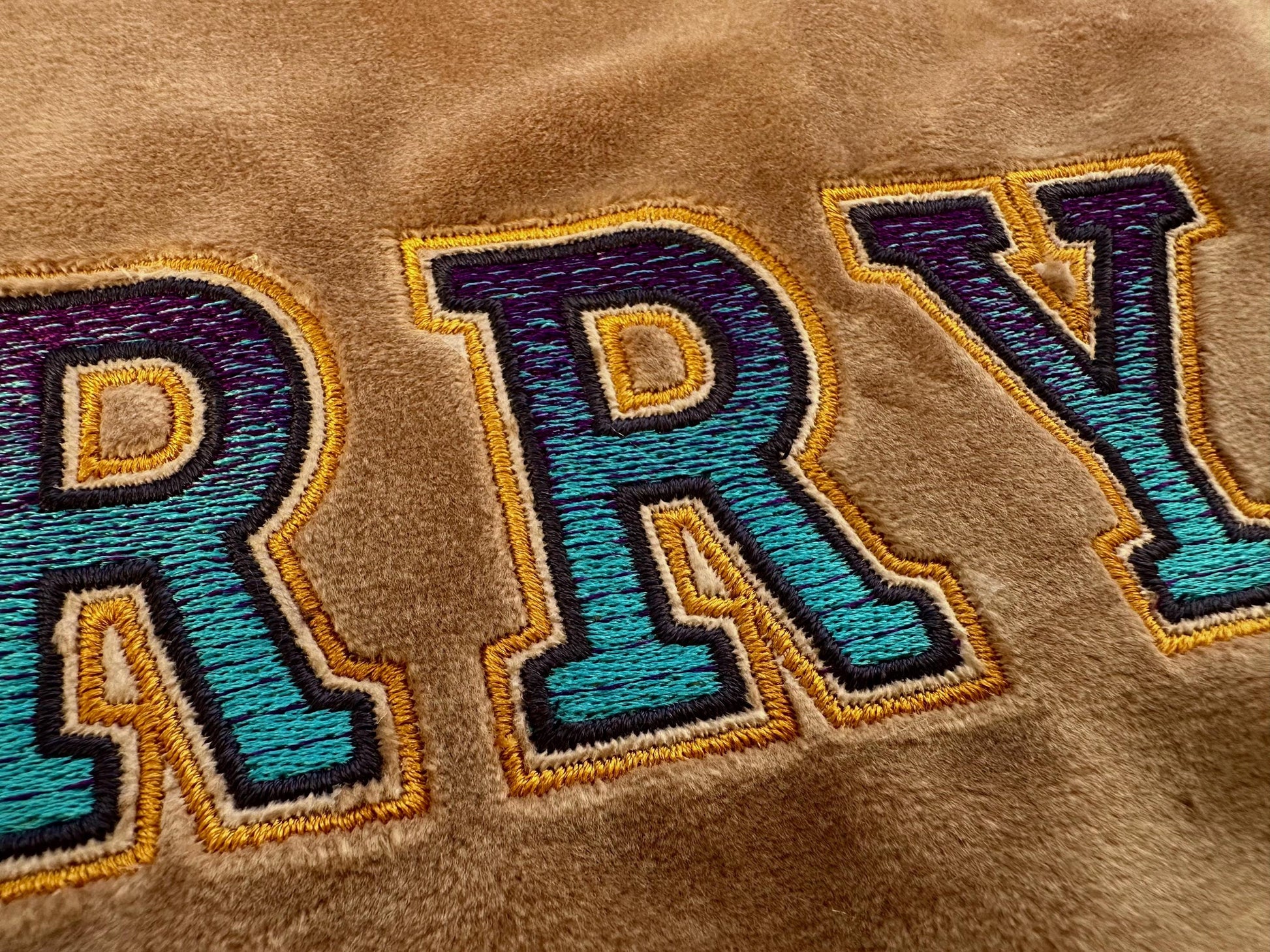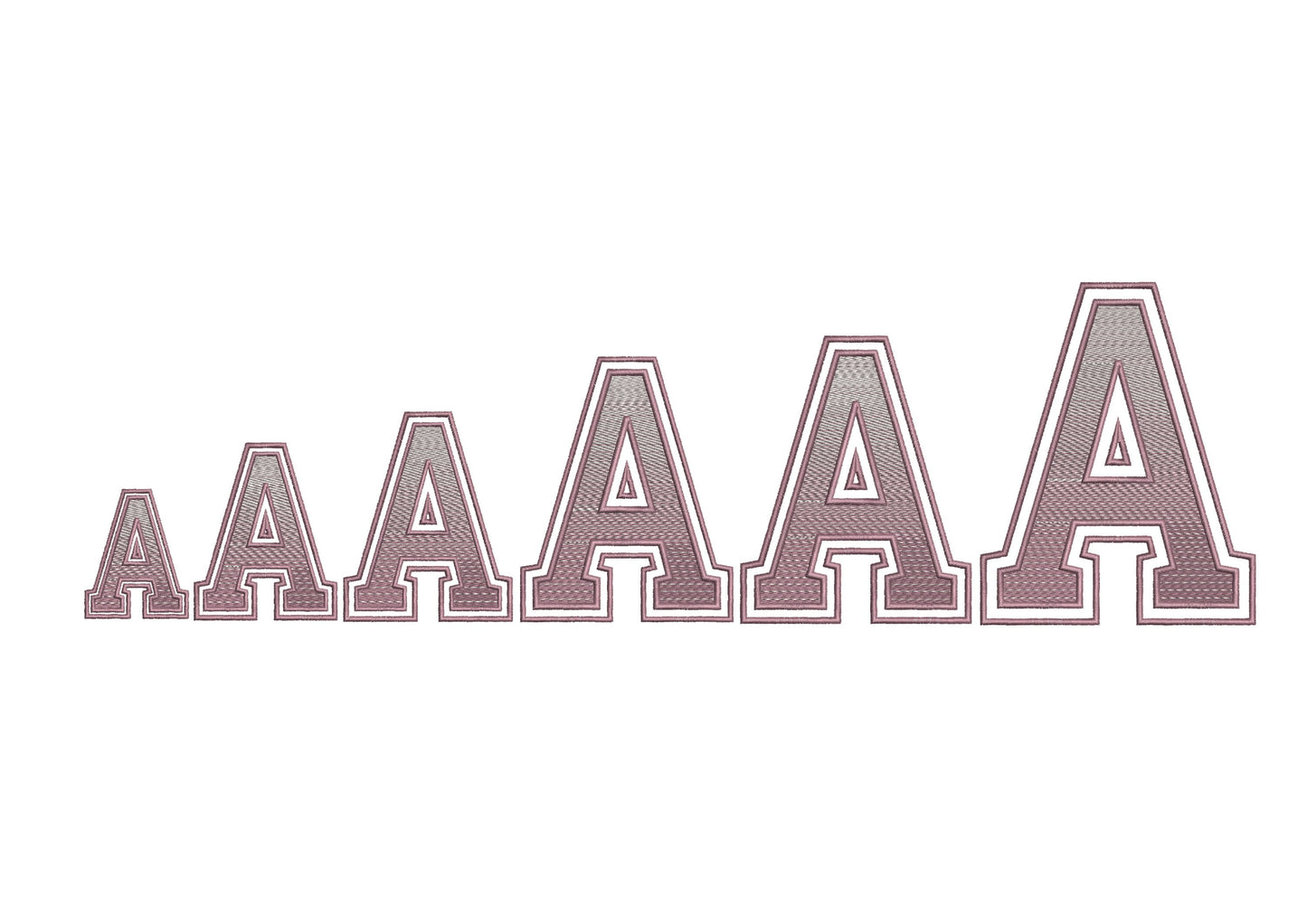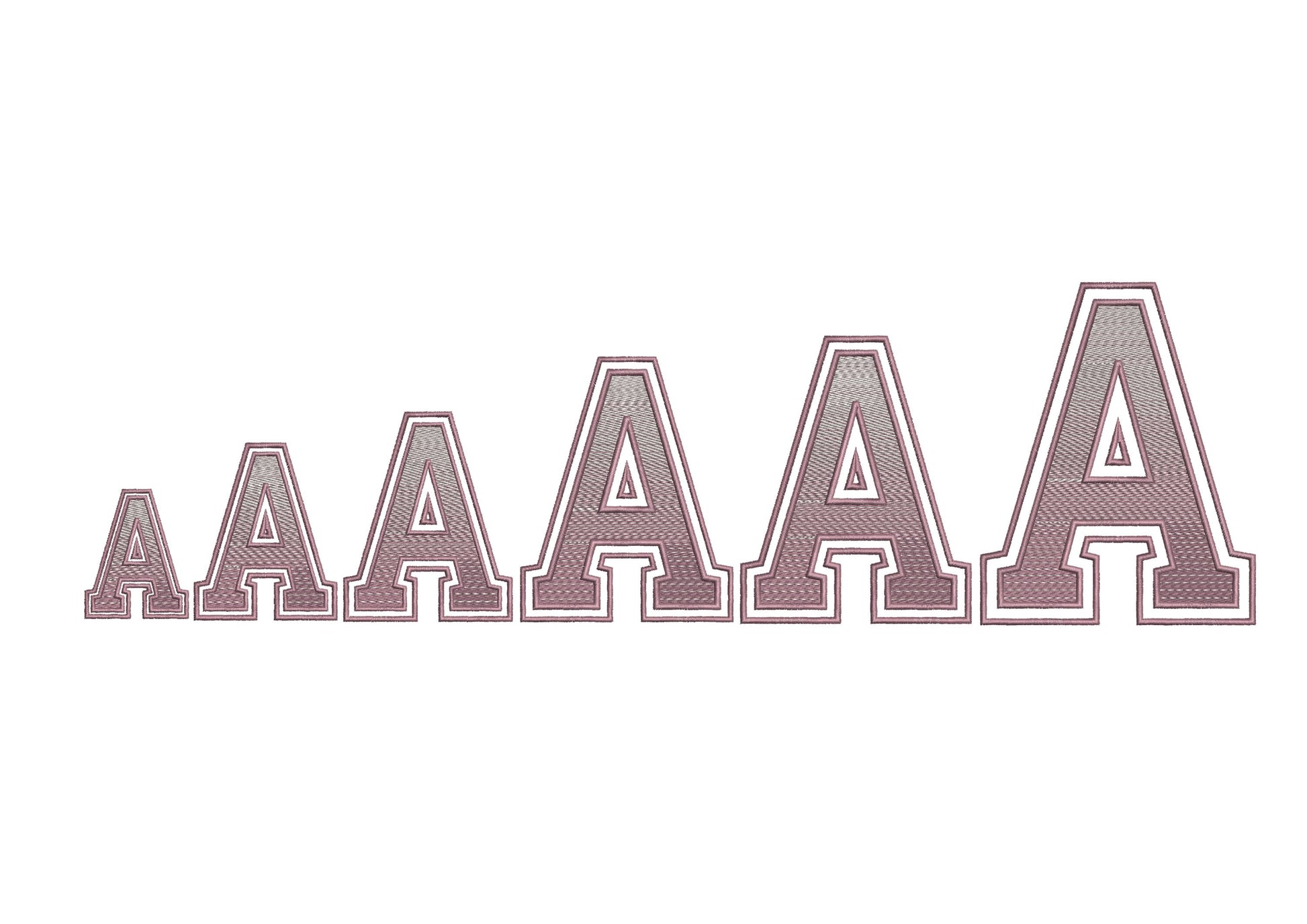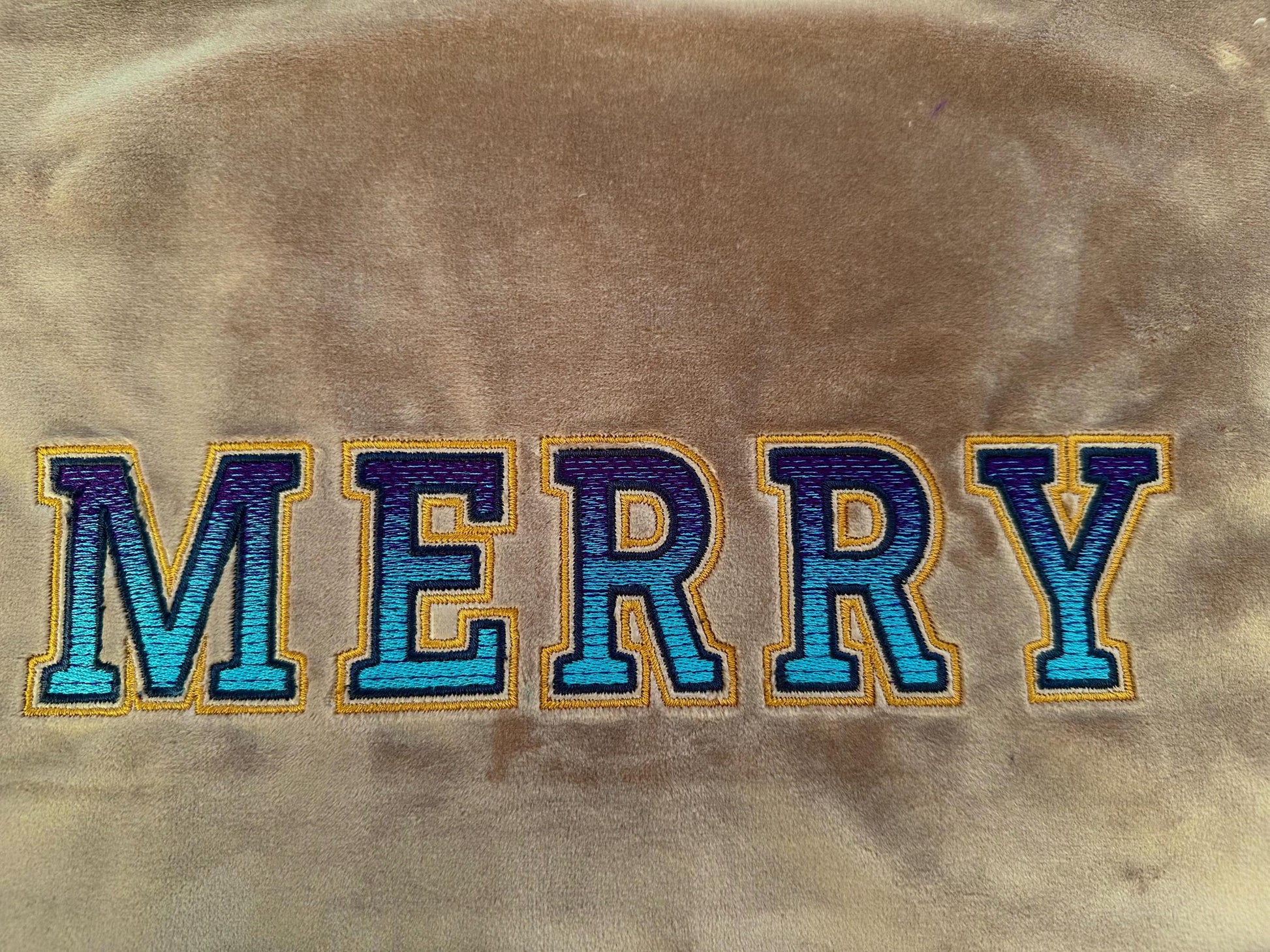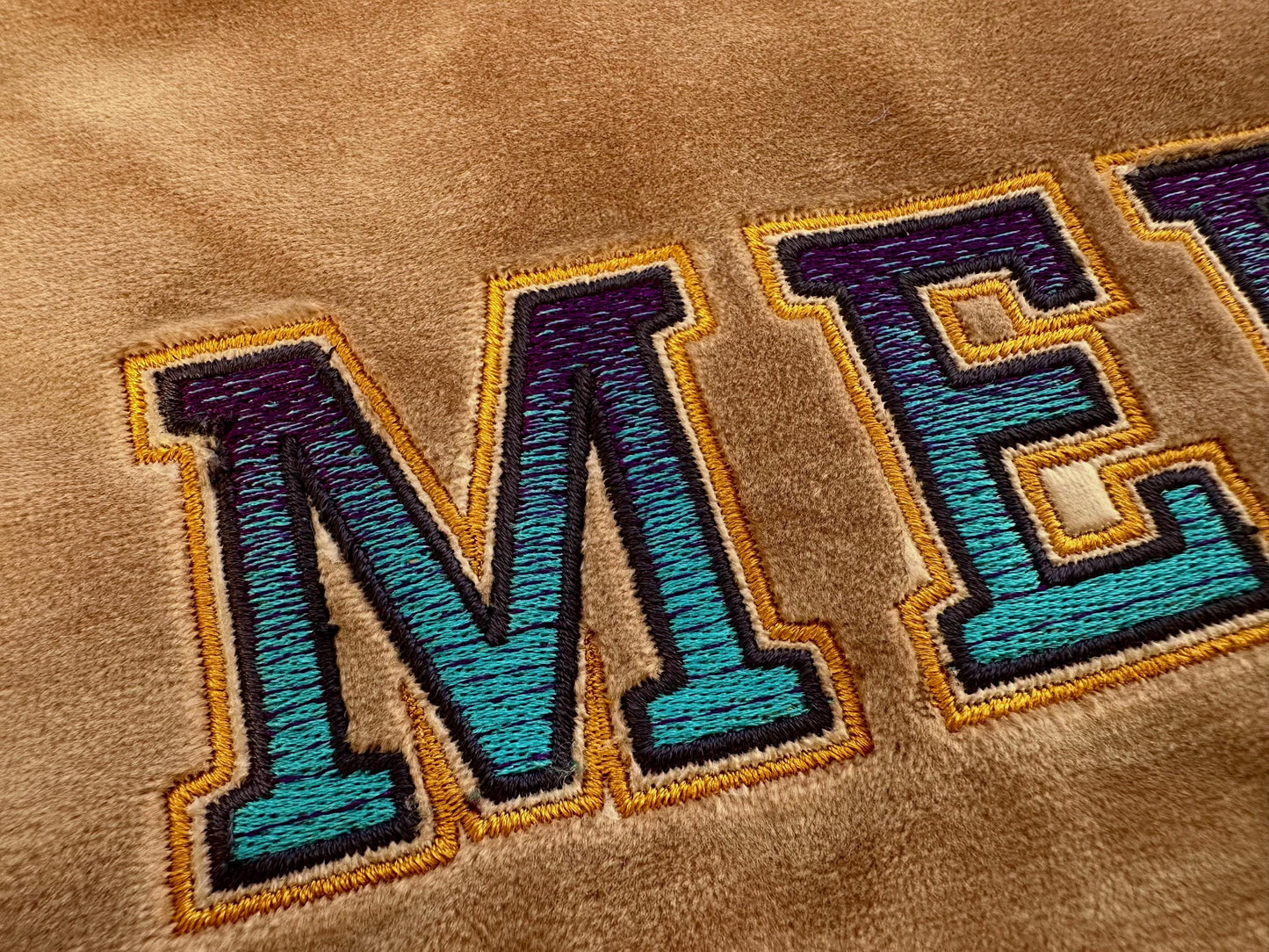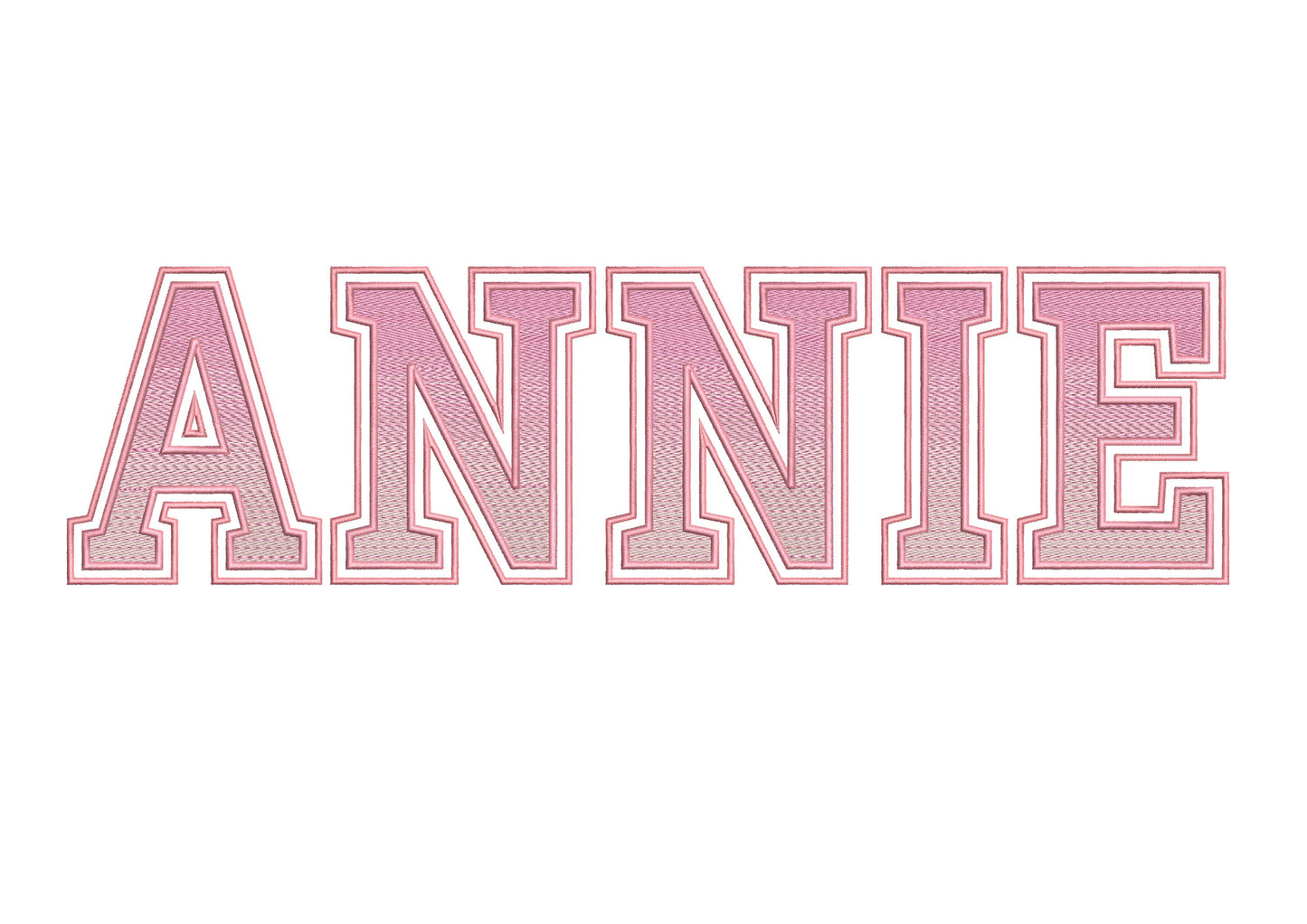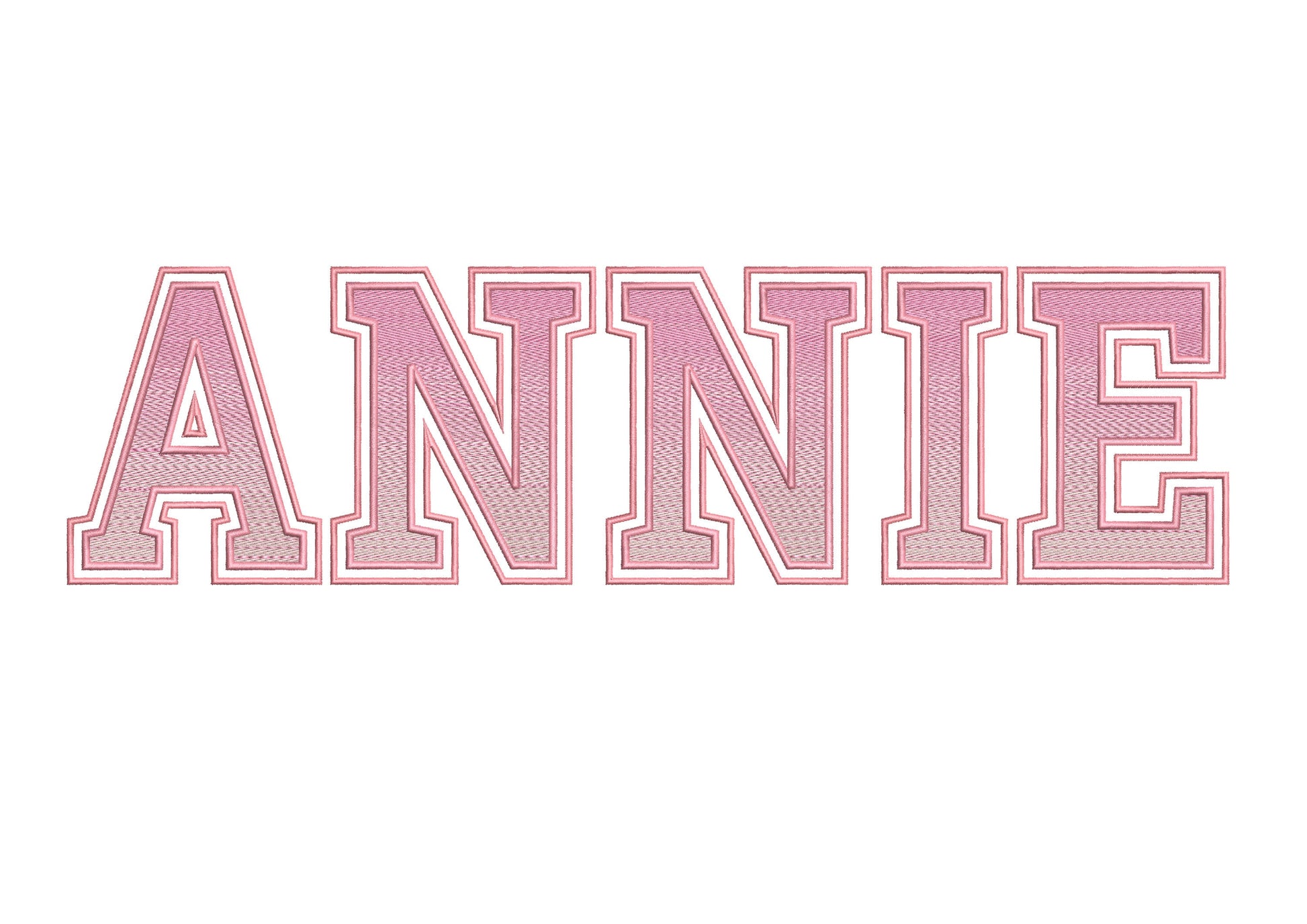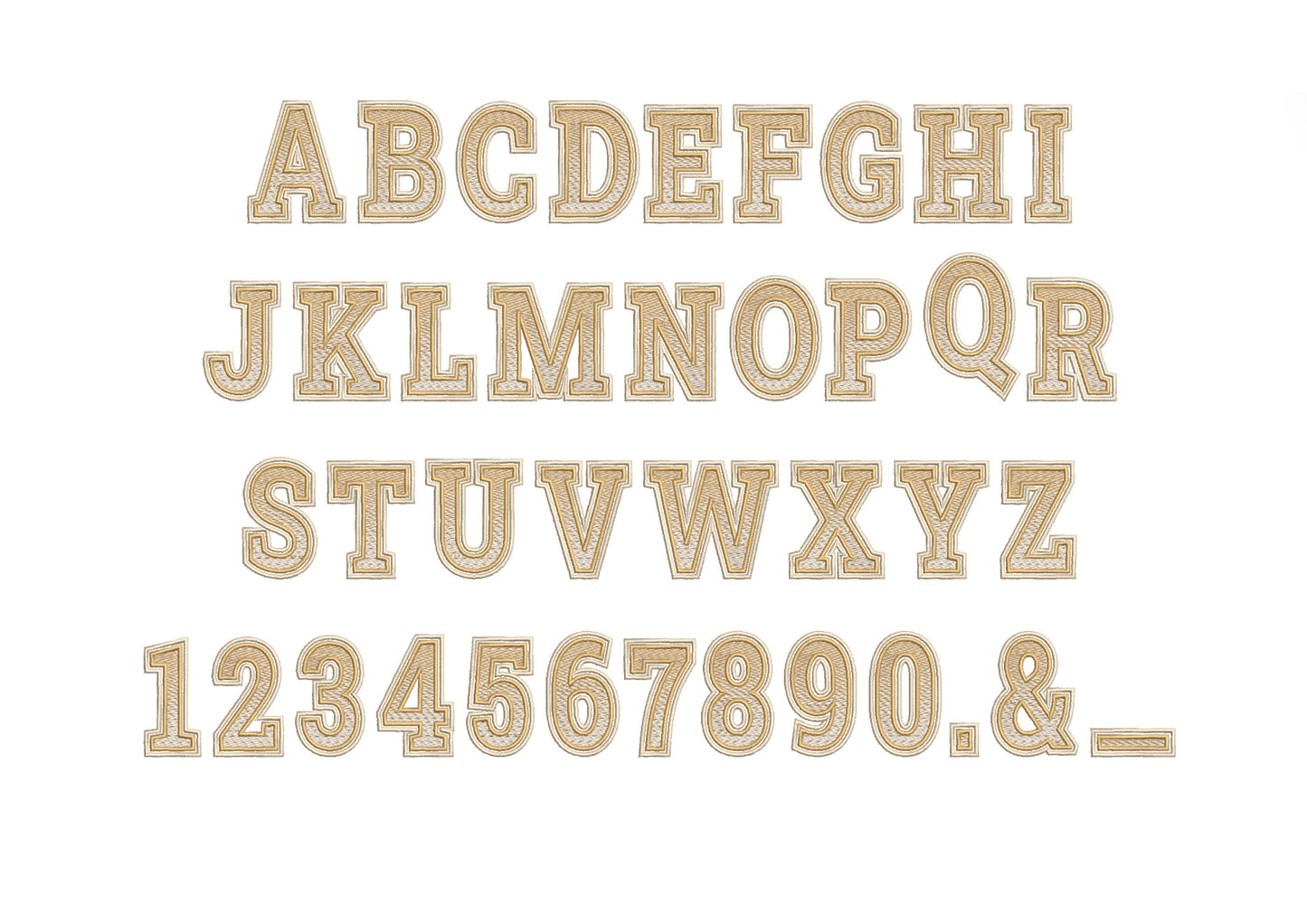
Or click to open the linkA narrow athletic font in two applique layers, made for terry and glitter vinyl letters on team shirts, hoodies and bags.
Each letter has two applique layers with a double outline, like classic team lettering. The letters come in six sizes: 2.3, 3.1, 3.7, 4.7, 5.1 and 6 inches.
- Two-layer athletic applique font
- Uppercase A-Z, numbers 0-9, & . -
- 6 sizes, 2.3 to 6 in